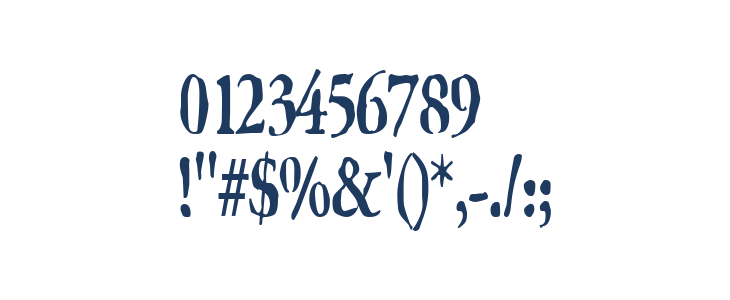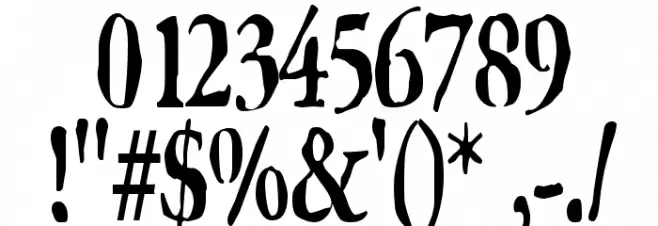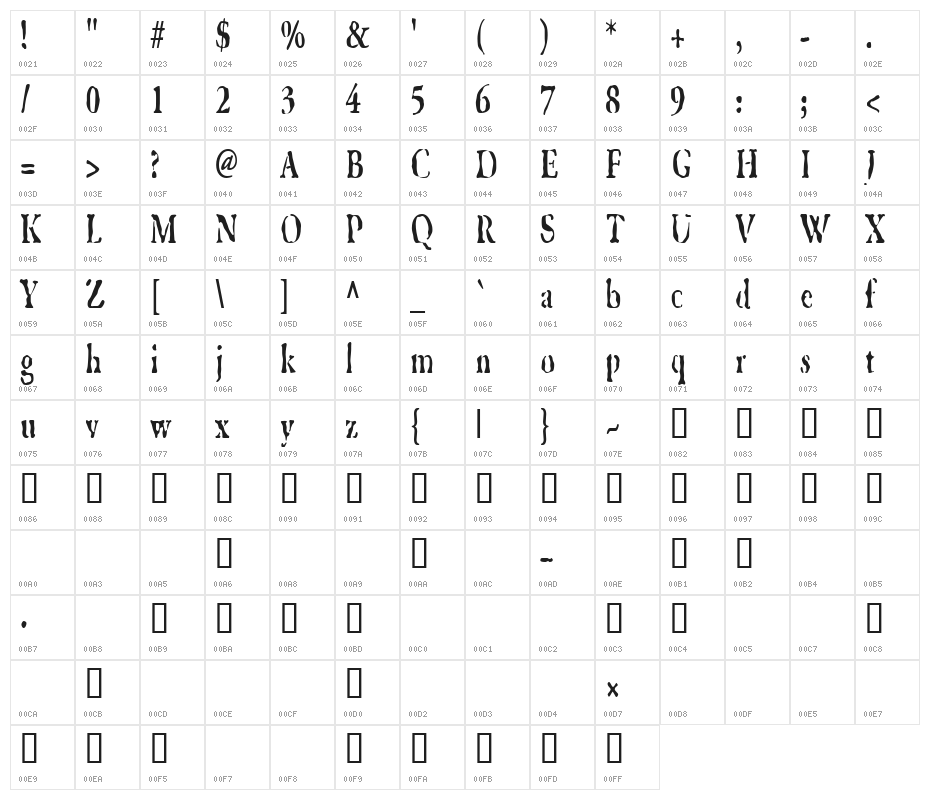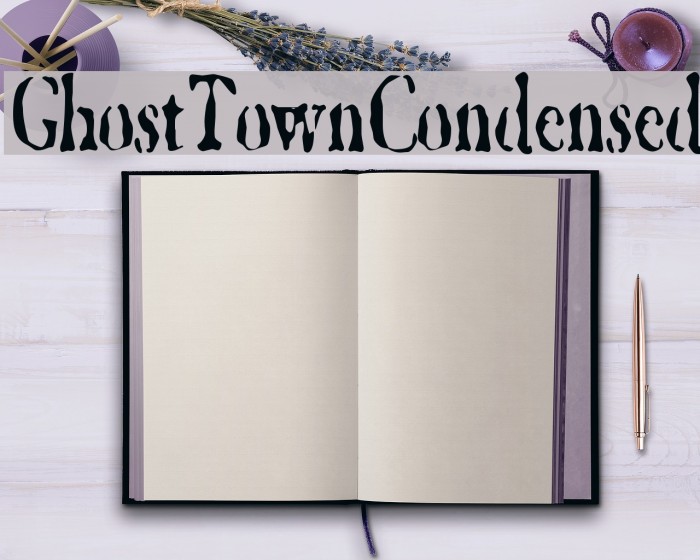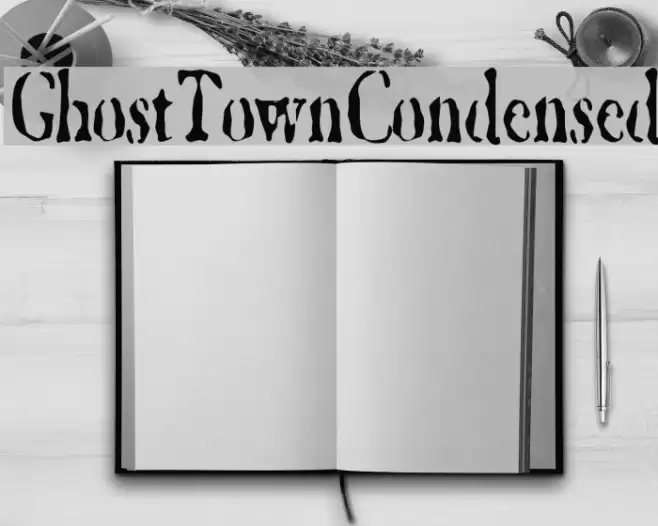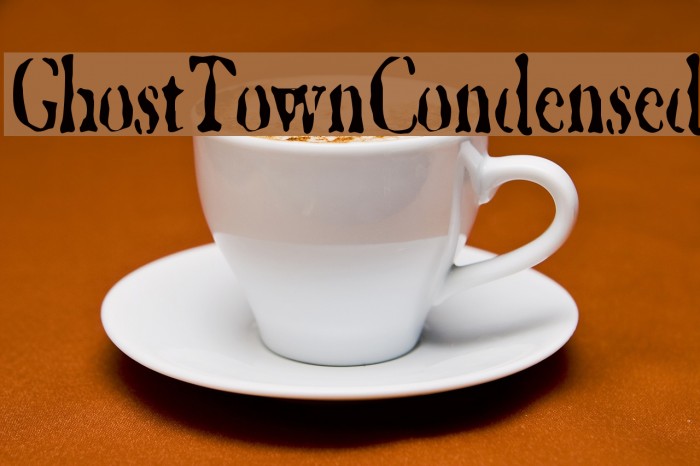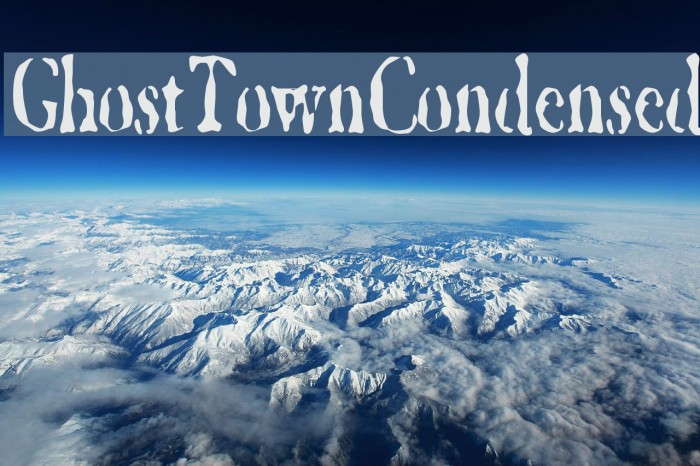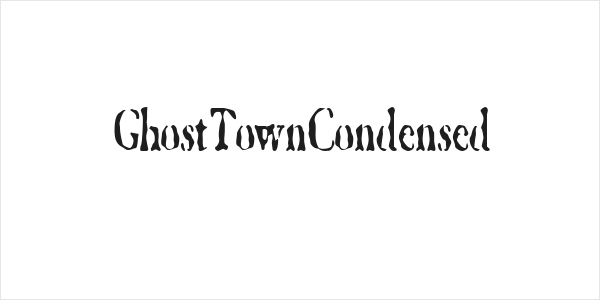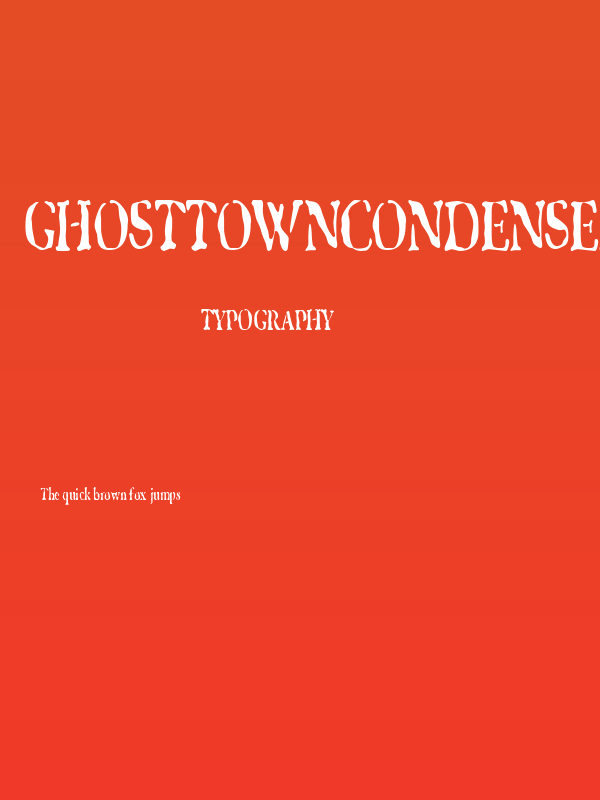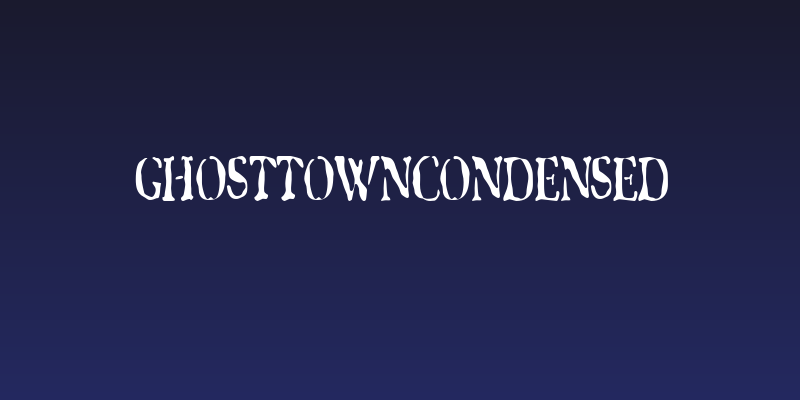
GhostTownCondensed Font
GhostTownCondensed Description
This font features a unique, distressed appearance with irregular edges and a slightly worn look, reminiscent of old western or vintage signage. The characters are bold and condensed, giving a compact feel while maintaining legibility. The uppercase and lowercase letters share a consistent style, with the uppercase being slightly more pronounced. Numbers and special characters follow the same design ethos, ensuring a cohesive look across all text. The font's distinct style makes it ideal for projects that require a rustic or antique aesthetic.
| Proposed Projects | Ideal for vintage-themed posters, logos, signage, and branding materials that require a rustic or antique touch. |